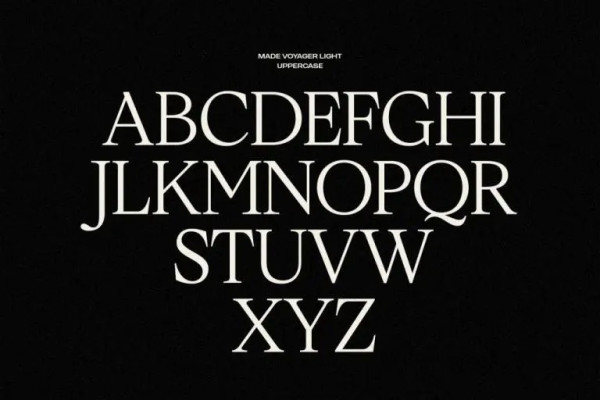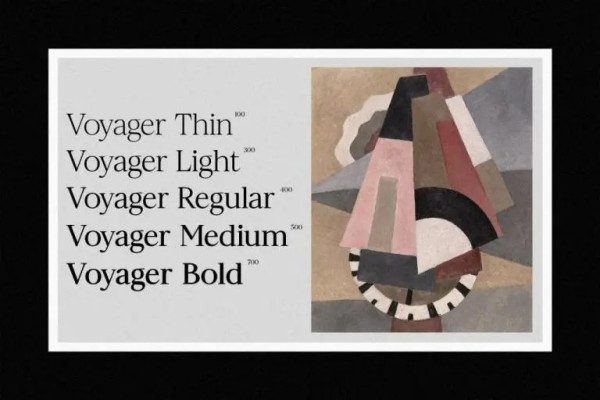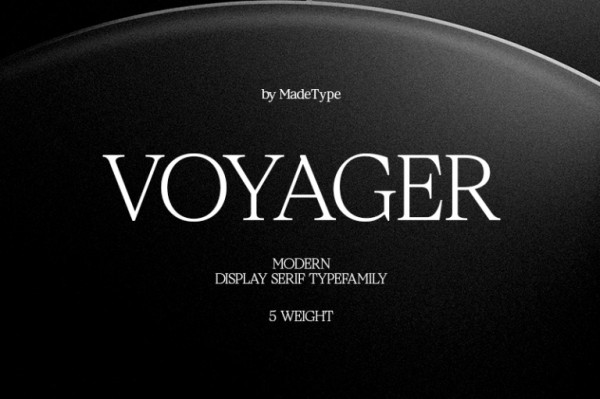
Voyager Font
Voyager Font is a modern and elegant serif font. Its striking look makes it perfect for branding. Best used as a display for headings and logos, MADE Voyage’s refined shapes and subtle contrast give any project a touch of luxury and class.